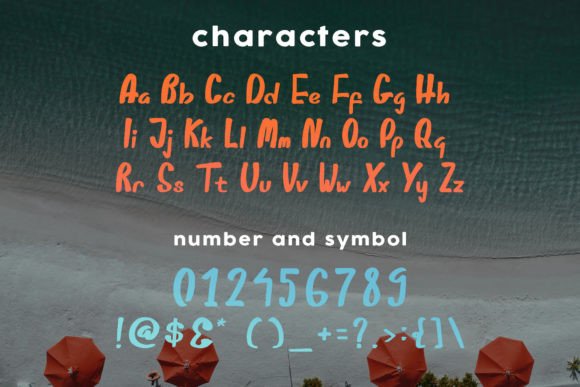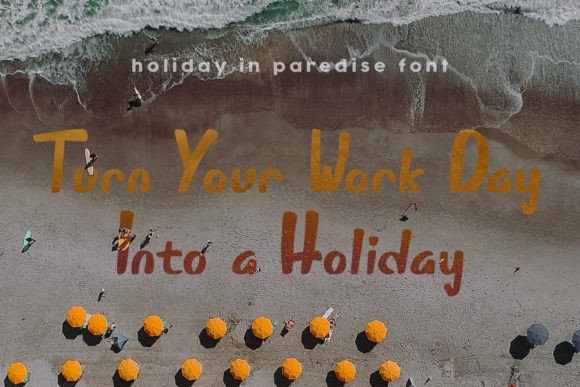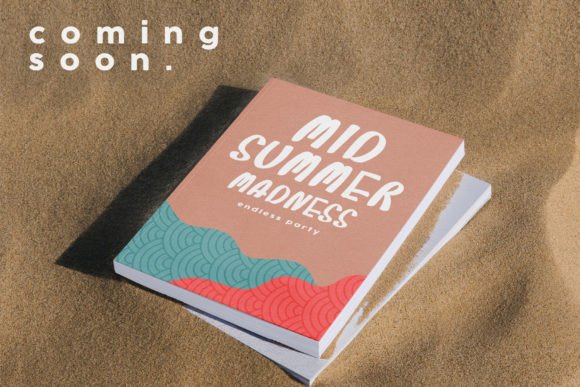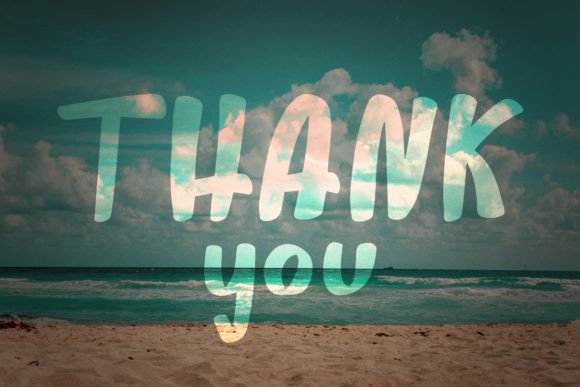
Unleashing Summer Vibes with Holiday in Paradise Font
There’s something magical about the first warm breeze of summer that sparks creativity and inspires us to create something special. As designers, we’re no strangers to this feeling – the urge to bring a touch of joy and whimsy to our projects. And that’s exactly what the Holiday in Paradise Font is all about.
This playful handwriting font is the perfect companion for your summer display projects, guaranteed to put a smile on your design and inspire you to create something truly memorable. With its universal and modern style, it’s the perfect tool for crafting special typographical designs for holidays, birthdays, baby showers, and more.
Holiday in Paradise Font Key Features
- Unique Characteristic: Features a unique blend of modern and vintage elements, making it suitable for various design projects.
Holiday in Paradise Font Review
Overall, I think the Holiday in Paradise Font is a visually appealing font, particularly for designs centered around tropical destinations or holiday vibes. ✨ The font’s clean, modern aesthetic and the use of subtle distressed effects give it a nice, laid-back feel that can add a lot of character to your design.
The font is highly customizable, which is a big plus. ✨ You can adjust the color, size, and spacing to fit your design needs. Additionally, the font’s flexibility makes it suitable for a wide range of applications, from social media graphics to brochures and even signage.
However, I do have some reservations about the font’s limitations. ⚠️ Firstly, the font might be a bit too casual for some designs, particularly those that require a more formal tone. Secondly, the font’s distressed effects can sometimes be a bit too prominent, which may not be ideal for designs where subtlety is key.
Here are some key things to consider when using the Holiday in Paradise Font:
- Best suited for casual, laid-back designs
- May not be ideal for formal designs
- Distressed effects can be a bit overpowering at times
Overall, I think the Holiday in Paradise Font is a solid choice for designs that require a relaxed, tropical vibe. With some careful consideration of its limitations, it can be a great addition to your design toolkit.
Practical Application Guide for “Holiday in Paradise Font”
For the best results, use the “Holiday in Paradise Font” for projects that require a tropical or beachy vibe, such as:
– Travel brochures
– Beach-themed party invitations
– Summer-themed social media graphics
Alternatives to Holiday in Paradise Font
The Holiday in Paradise Font is a beautiful, elegant script font. However, designers may be looking for alternatives that offer similar characteristics or unique features. Here are a few options:
The Great Vibes Font is a modern, elegant script font that is perfect for creating a luxurious and sophisticated feel. It is ideal for use in high-end branding, invitations, and wedding stationery. Compared to Holiday in Paradise Font, Great Vibes Font has a more refined and polished look, making it suitable for formal events.
The Carolyna Pro Font is a modern, elegant script font that is designed for use in fashion, beauty, and lifestyle branding. It has a more playful and whimsical feel compared to Holiday in Paradise Font, making it perfect for creating a fun and youthful vibe. Carolyna Pro Font is ideal for use in social media, advertising, and packaging design.
The Alex Brush Font is a beautiful, elegant script font that is perfect for creating a romantic and vintage feel. It is ideal for use in wedding invitations, stationery, and branding for luxury businesses. Compared to Holiday in Paradise Font, Alex Brush Font has a more delicate and intricate look, making it suitable for creating a sophisticated and elegant feel.